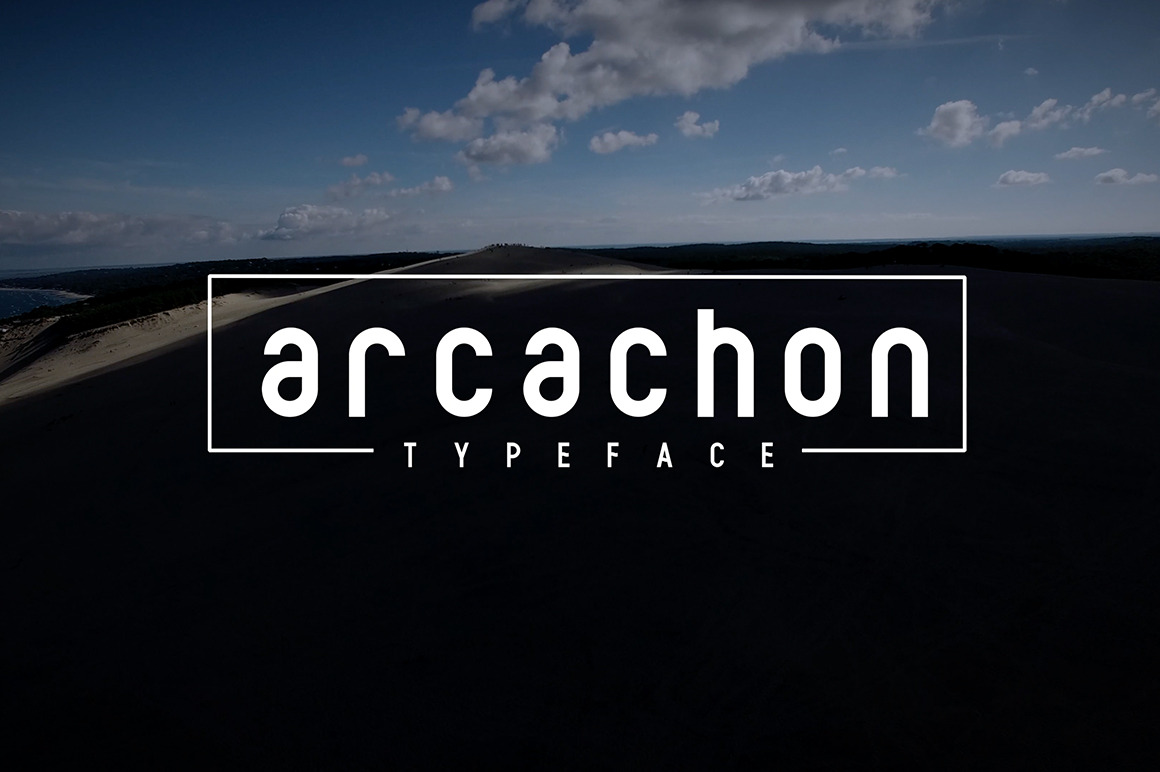
Arcachon font
Arcachon font is a unique bold typeface.
Made for giving original titles. Arcachon packs a set of uppercase and lowercase, numbers and punctuation. Font for design greeting, logos, prints, web design, invitation, business cards, quotes, clothing brand, design greeting, cafe and much more.